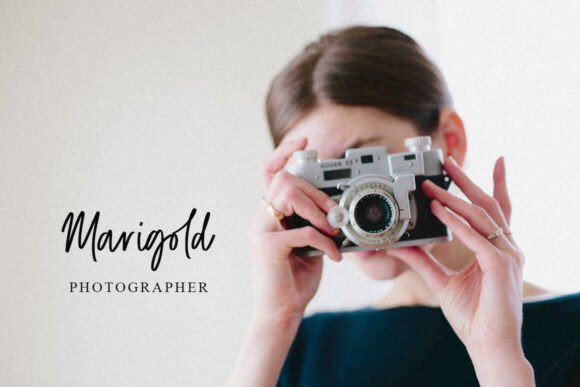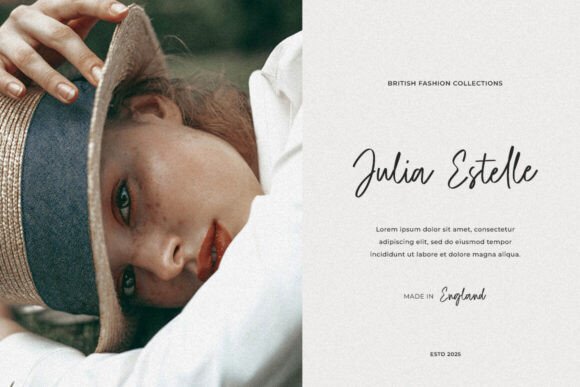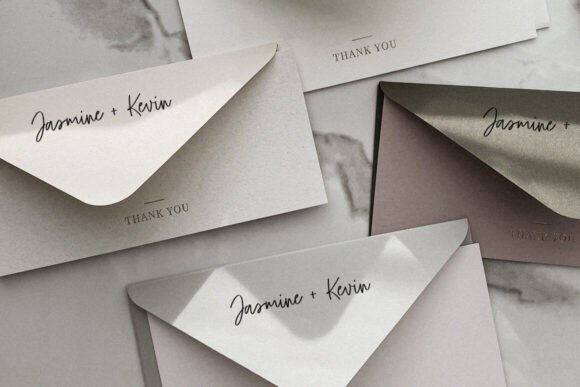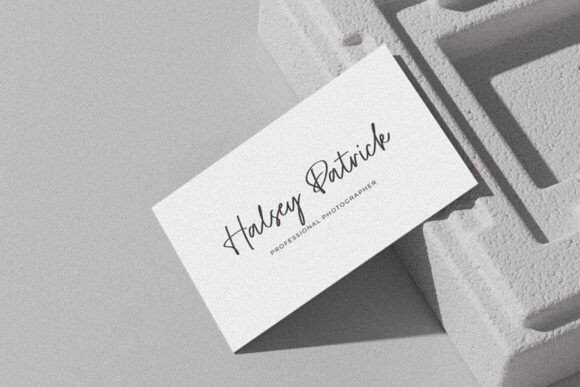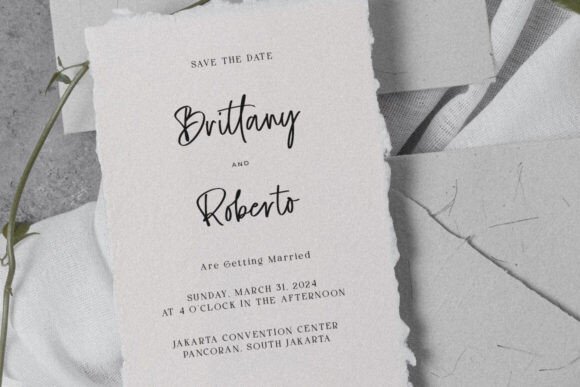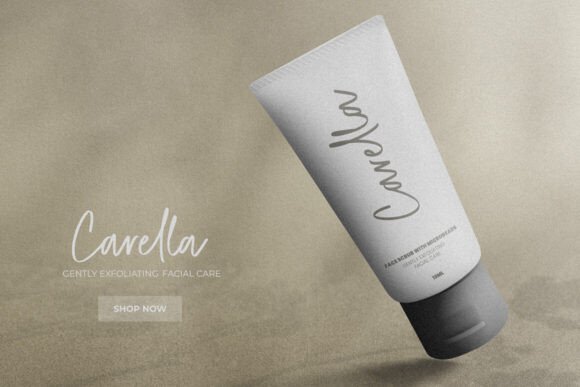
Dellmonte Font: Elevate Your Designs with a Touch of Casual Elegance
In the world of typography, fonts play a crucial role in conveying the tone and personality of a brand or design. For designers and crafters looking for a font that exudes a sense of relaxed charm and handwritten elegance, Dellmonte is an excellent choice. This casual script font has been gaining popularity for its unique ability to blend smooth curves and flowing strokes, creating a friendly and approachable vibe that’s perfect for a wide range of design applications.
The Characteristics of Dellmonte Font
Dellmonte is a script font that stands out for its effortless beauty and modern appeal. Its key characteristics include:
- Smooth Curves: Dellmonte’s curves are meticulously crafted to provide a smooth, fluid look that enhances the readability and aesthetic appeal of your text.
- Flowing Strokes: The font features flowing strokes that connect letters in a natural, handwritten way, giving it a personal and approachable feel.
- Casual Elegance: Despite its casual nature, Dellmonte does not compromise on elegance. It strikes the perfect balance between being laid-back and sophisticated.
Uses of Dellmonte Font
Dellmonte’s versatility makes it suitable for various design projects. Here are some of the best uses for this charming font:
- Quotes: Add a personal touch to your quotes with Dellmonte. Its elegant and flowing script makes inspirational and motivational quotes stand out.
- Branding: For brands aiming to convey a friendly and approachable image, Dellmonte can be a great addition to their branding materials.
- Packaging: Whether you’re designing labels for products or creating packaging for a boutique brand, Dellmonte can add a touch of elegance and charm.
- Social Media Posts: Stand out on social media with Dellmonte. It’s perfect for creating engaging posts, stories, and captions that reflect a modern and stylish vibe.
Why Choose Dellmonte Font?
There are several reasons why designers and crafters are gravitating towards Dellmonte:
- Unique Appeal: Dellmonte offers a unique blend of casualness and elegance, making it a standout choice for designers looking for something fresh.
- Versatility: Its versatility means it can be used across a wide range of projects, from digital content to print materials.
- Easy to Read: Despite its decorative nature, Dellmonte remains highly legible, making it practical for use in various contexts.
Tips for Using Dellmonte Font Effectively
To make the most of Dellmonte, consider the following tips:
- Pair with Simple Fonts: For maximum impact, pair Dellmonte with simpler fonts for body text to create a balanced design.
- Adjust Letter Spacing: Slightly adjust the letter spacing to enhance readability and ensure your text looks cohesive.
- Highlight Key Points: Use Dellmonte to highlight key points or messages in your design to draw attention and add emphasis.
Dellmonte font is a beautiful addition to any designer’s toolkit. Its unique blend of casual charm and elegance makes it perfect for a variety of projects, from quotes and branding to packaging and social media posts. With its smooth curves, flowing strokes, and effortless beauty, Dellmonte brings a friendly and approachable vibe to your designs. Whether you’re a professional designer or a crafter, Dellmonte is sure to inspire and elevate your creative work.